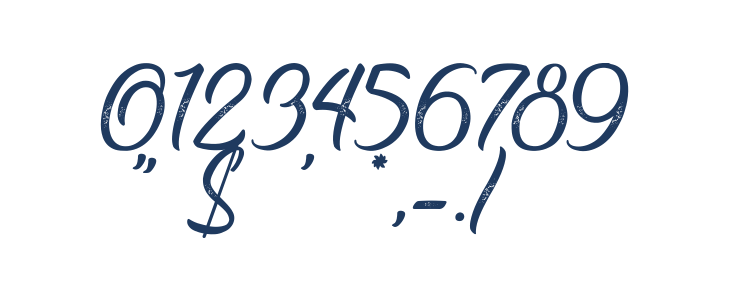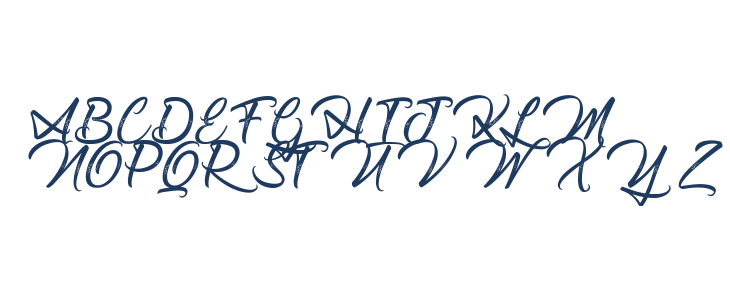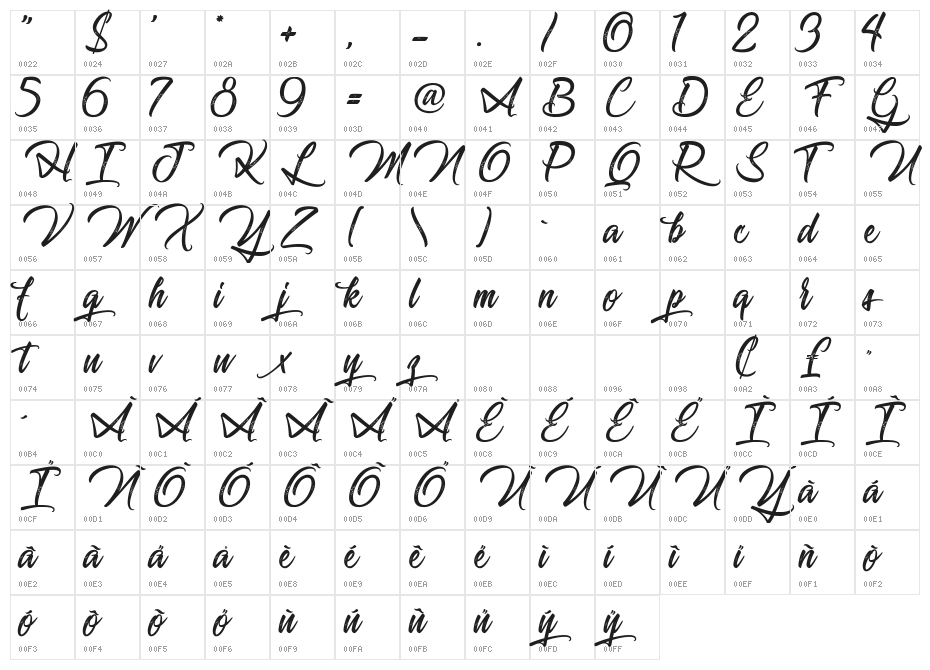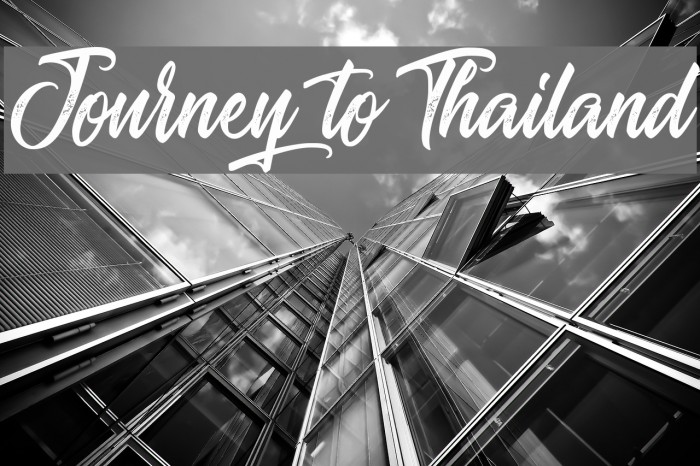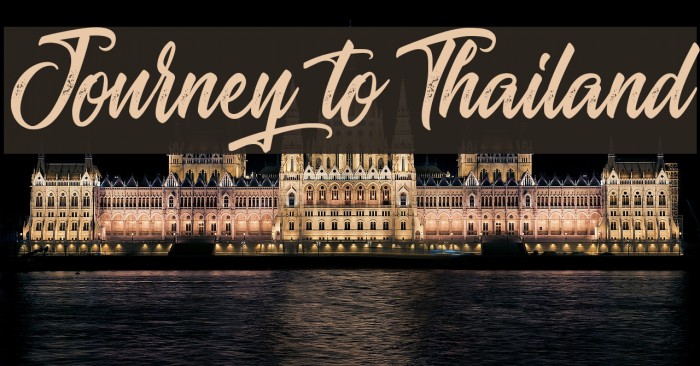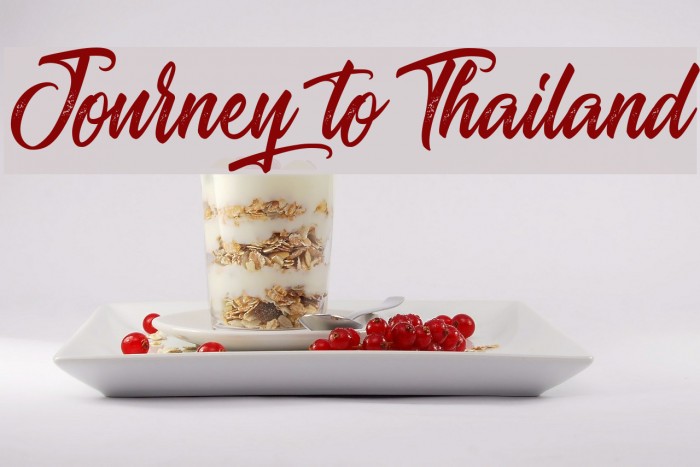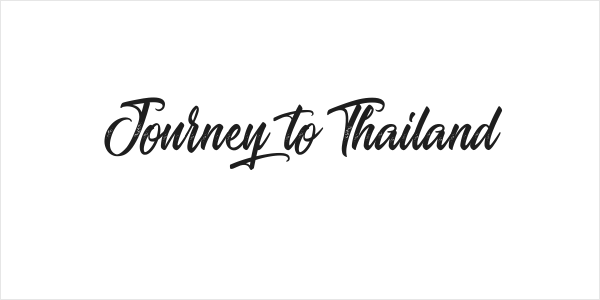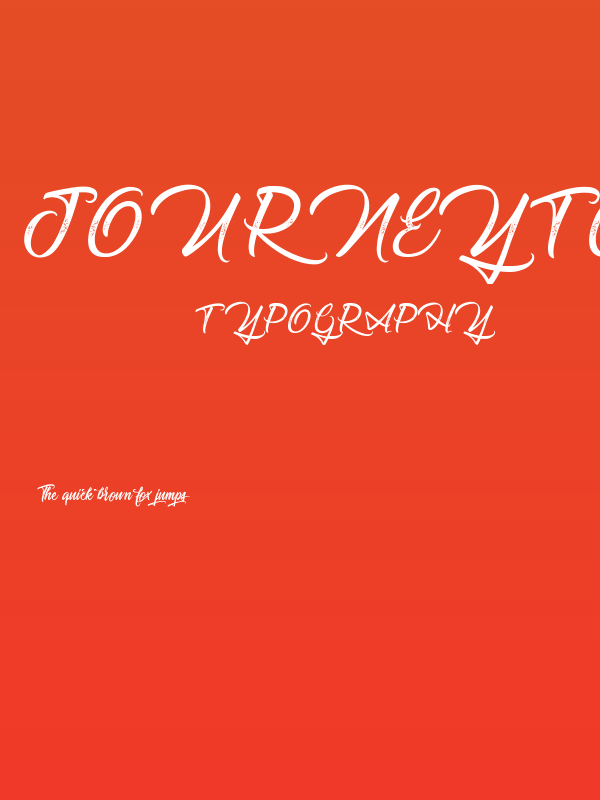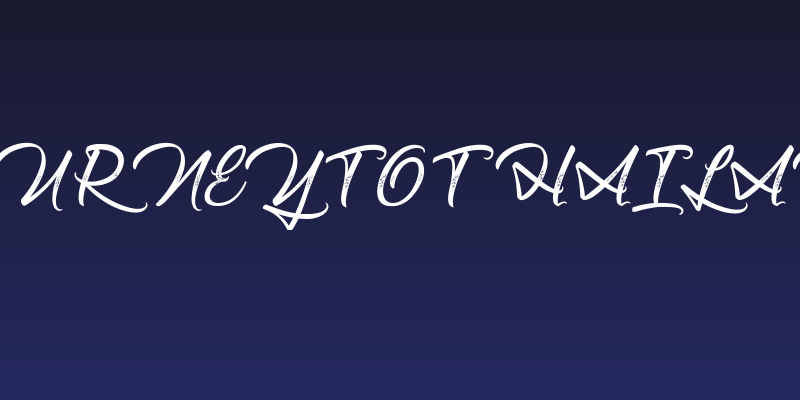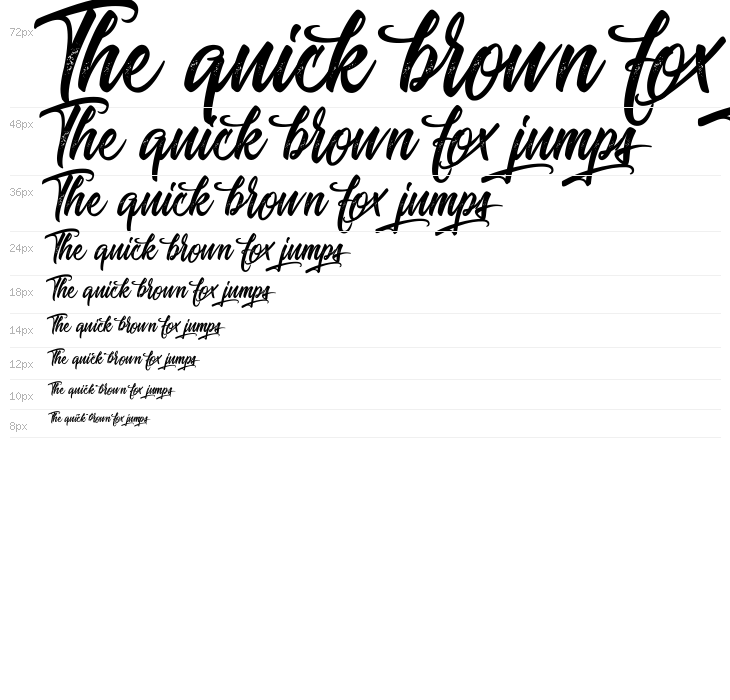
Journey to Thailand Font
Journey to Thailand Description
This font features a dynamic and expressive script style with a strong calligraphic influence. The uppercase letters are elegant and flowing, with distinctive loops and swashes that add a sense of movement. The lowercase letters are bold and slightly condensed, maintaining a consistent rhythm throughout. The numerals are clear and well-proportioned, complementing the overall style. Special characters like the ampersand and asterisk are creatively designed, enhancing the decorative aspect of the font. The texture appears slightly rough, giving it a handcrafted feel, which adds to its charm and uniqueness.